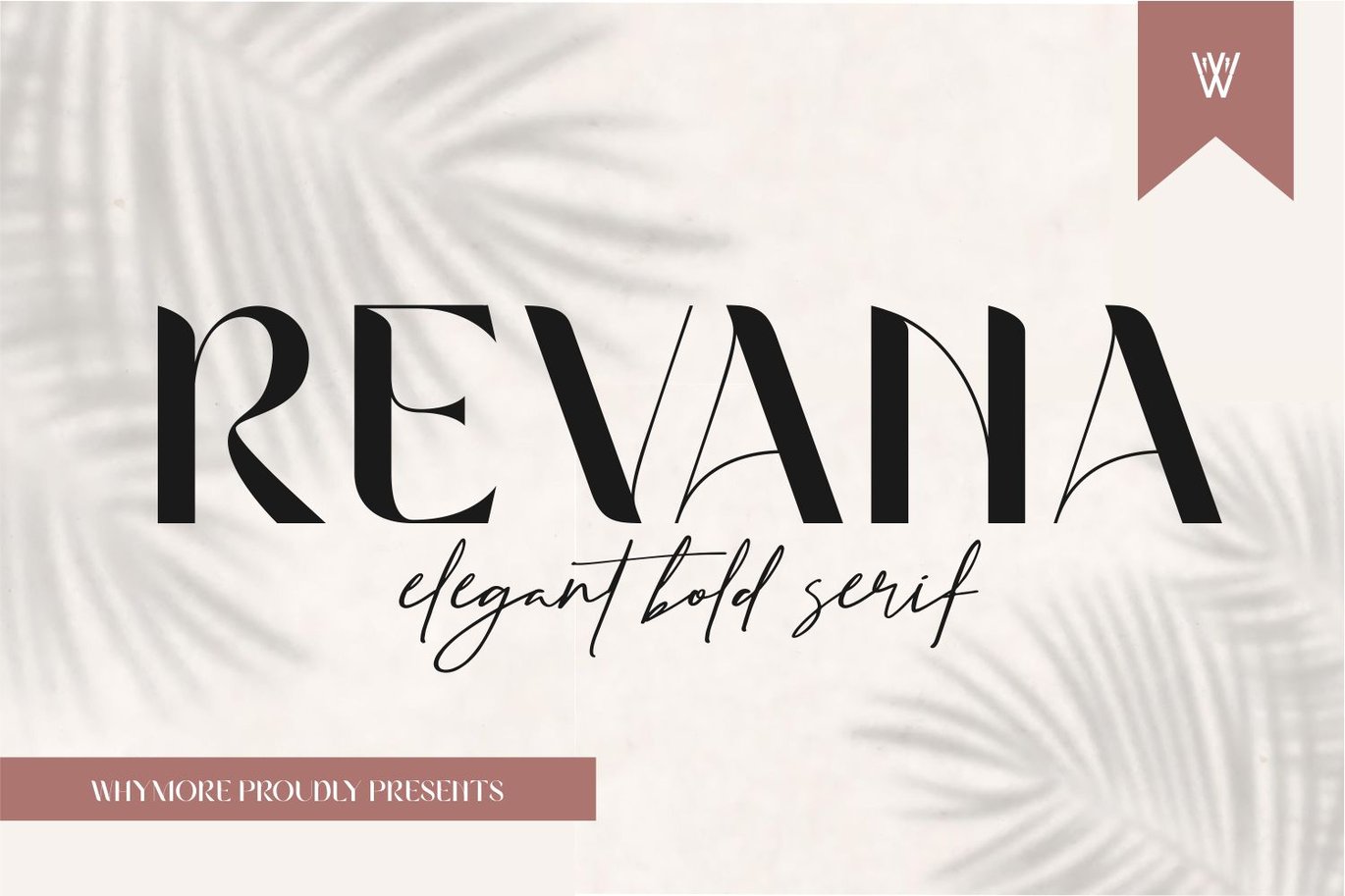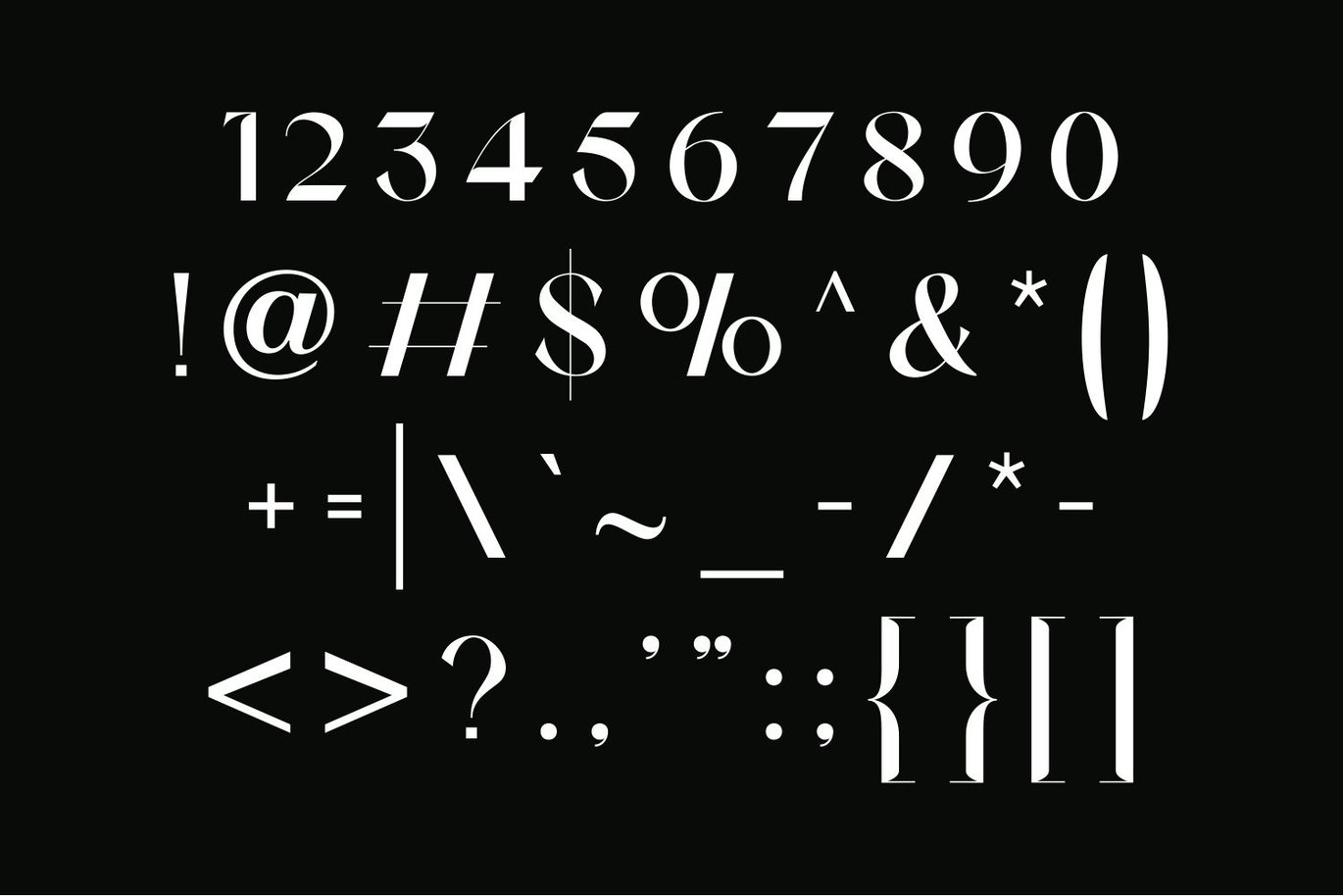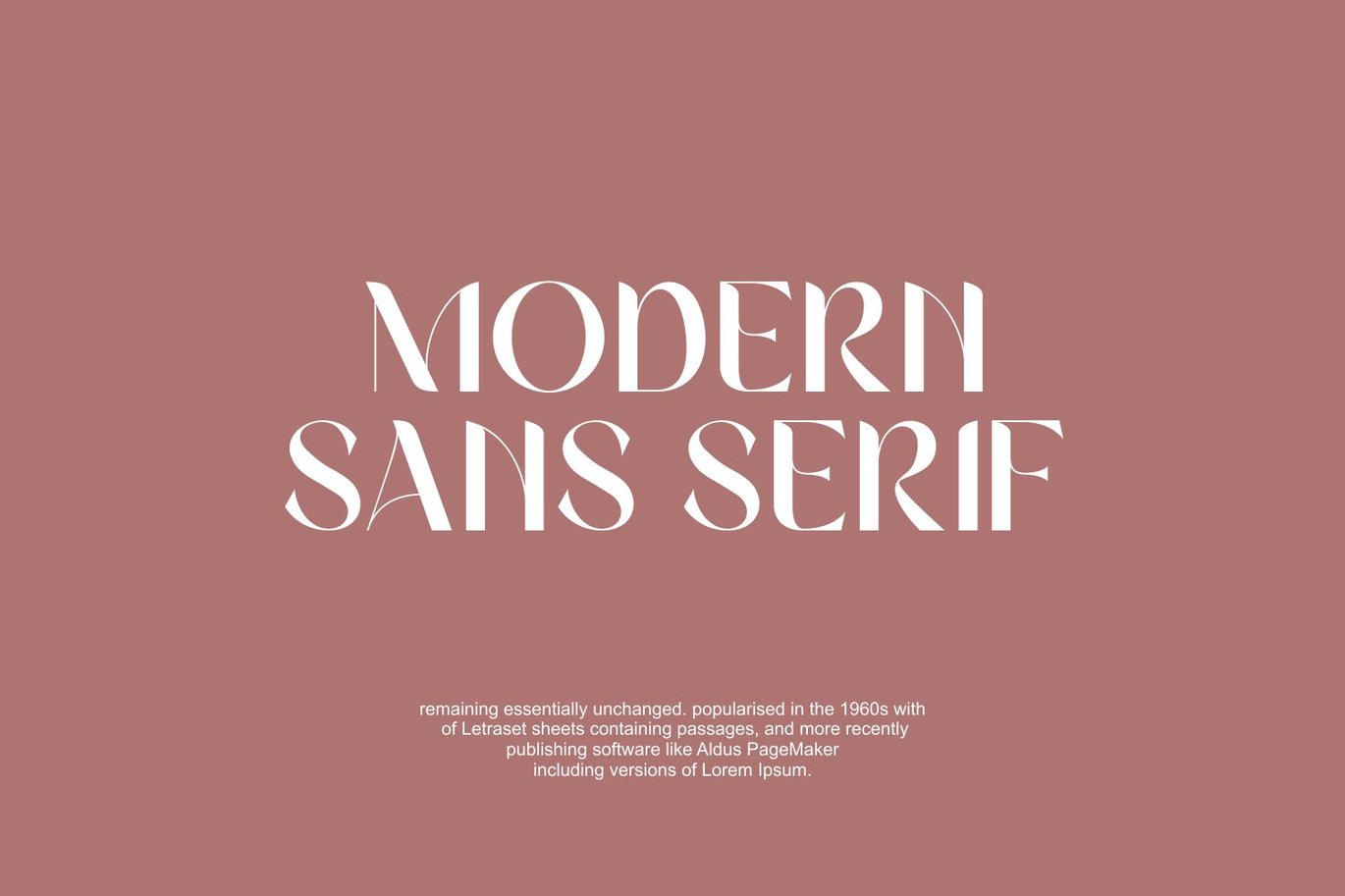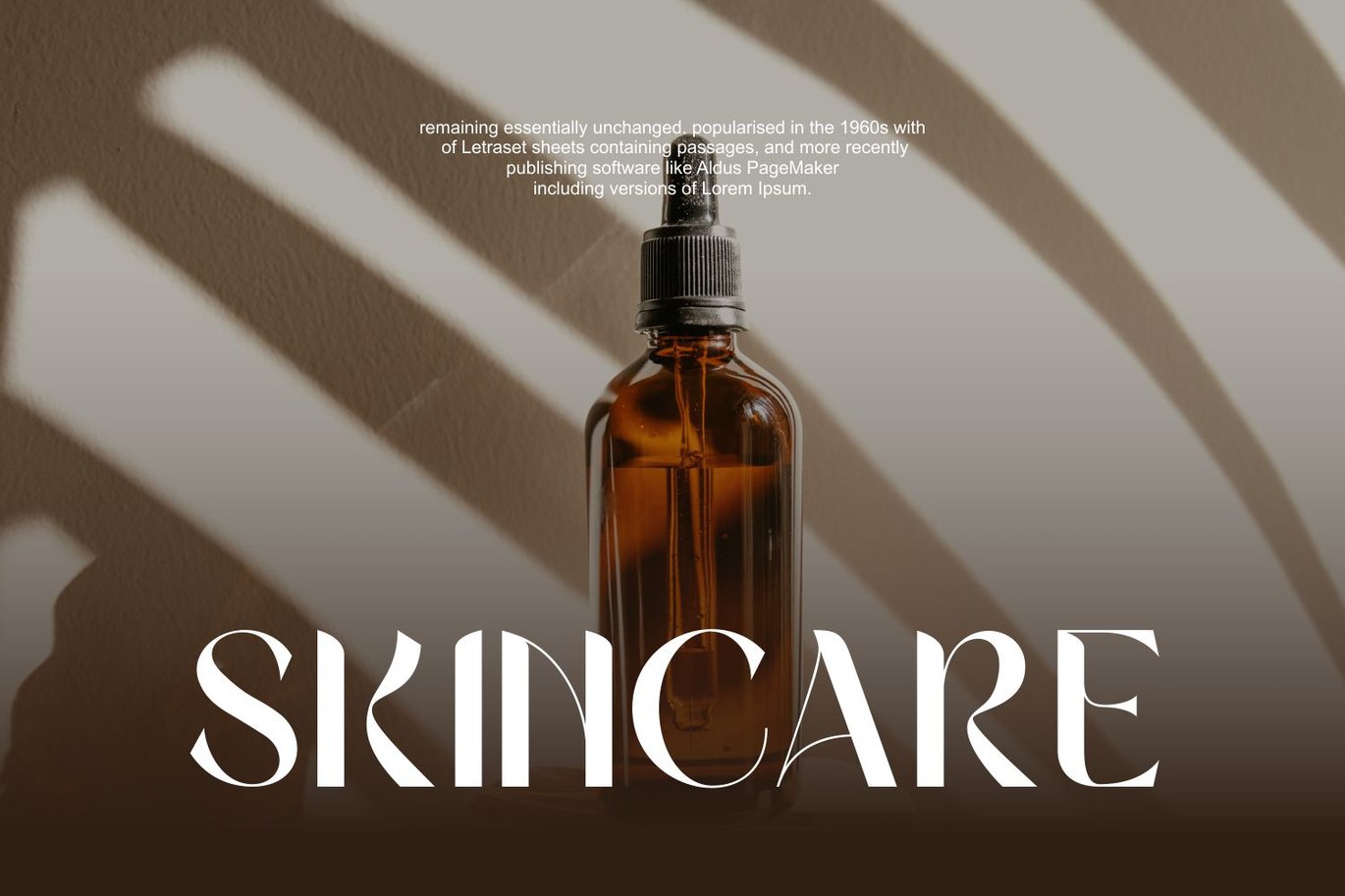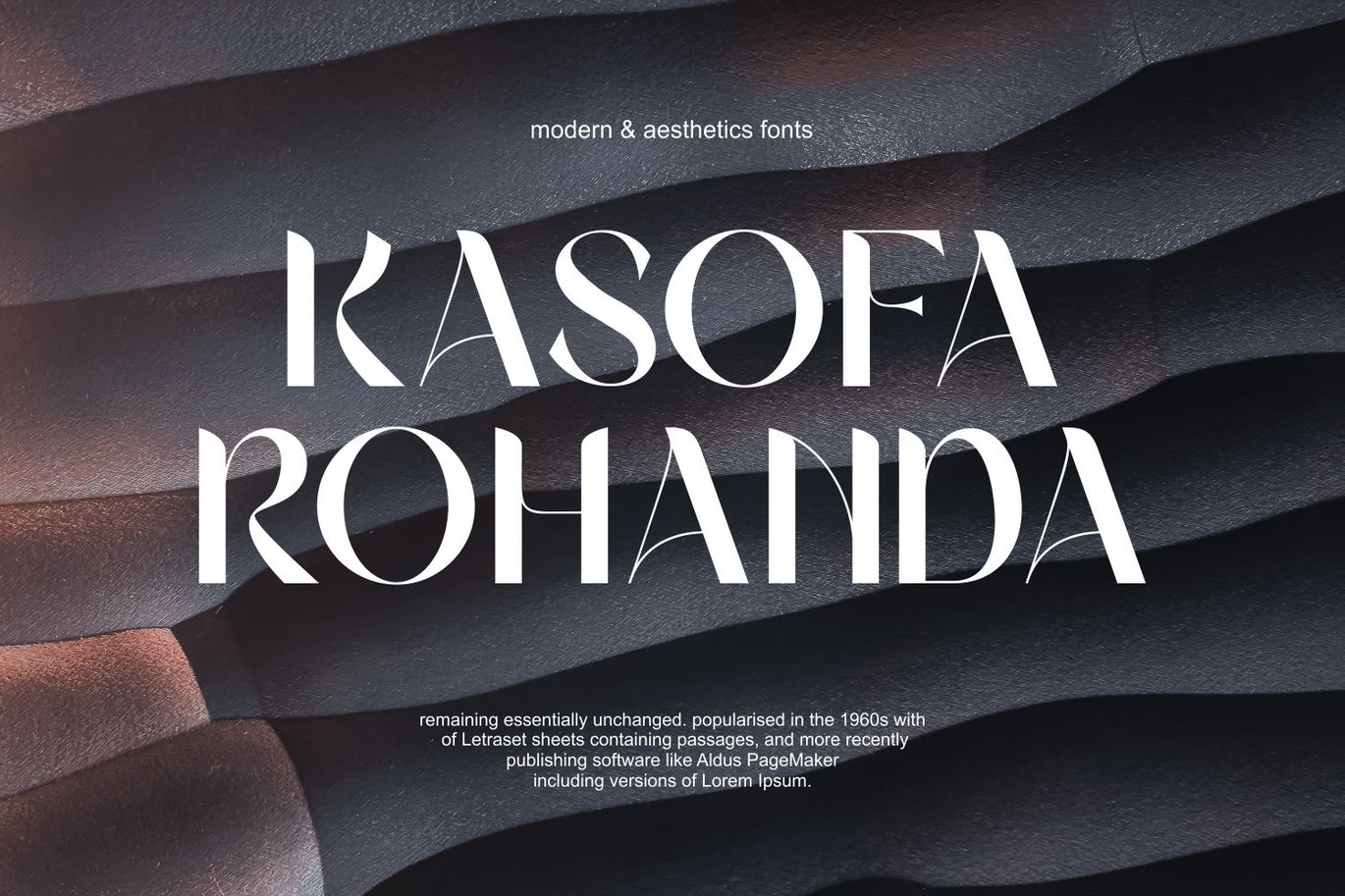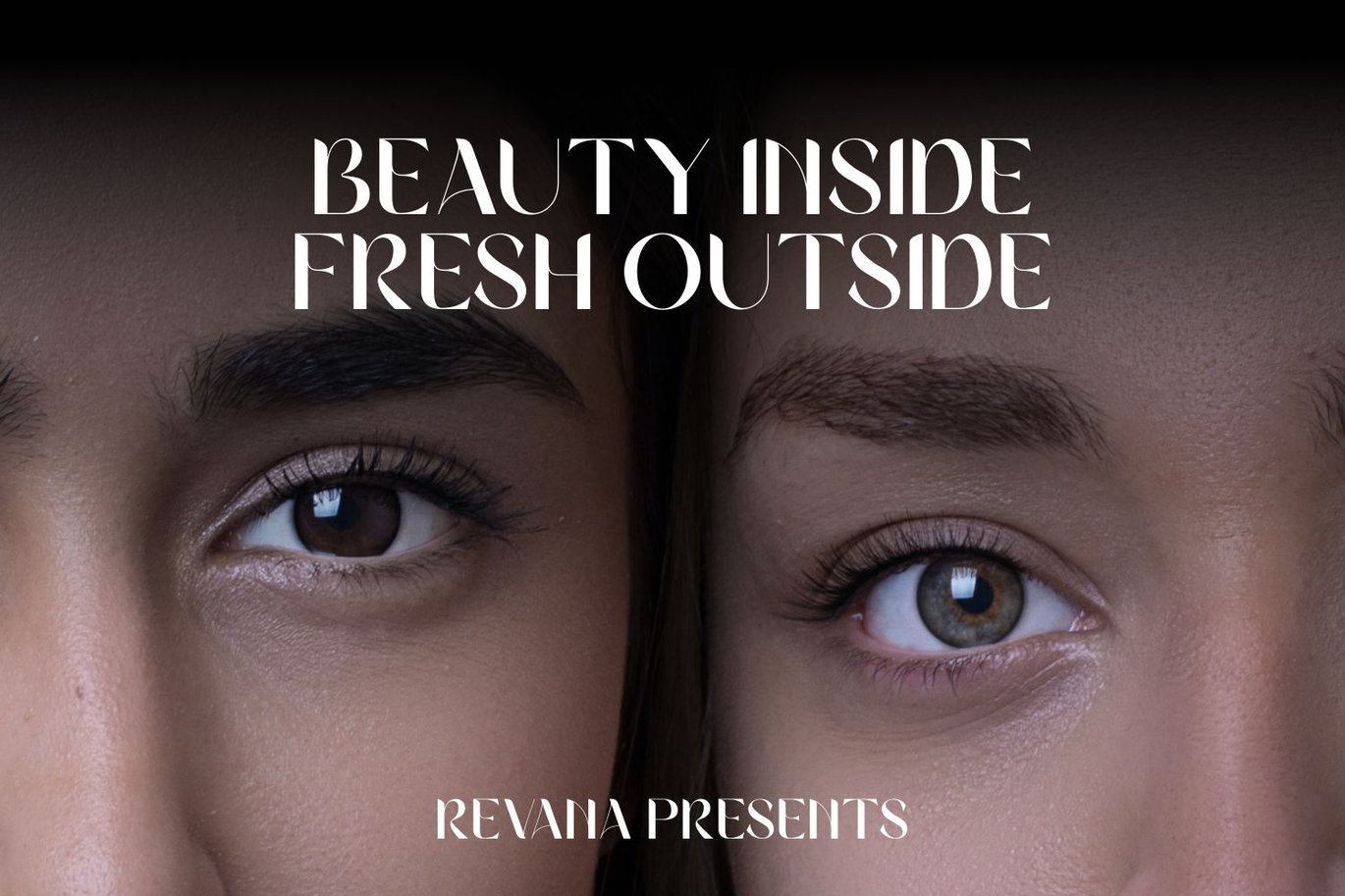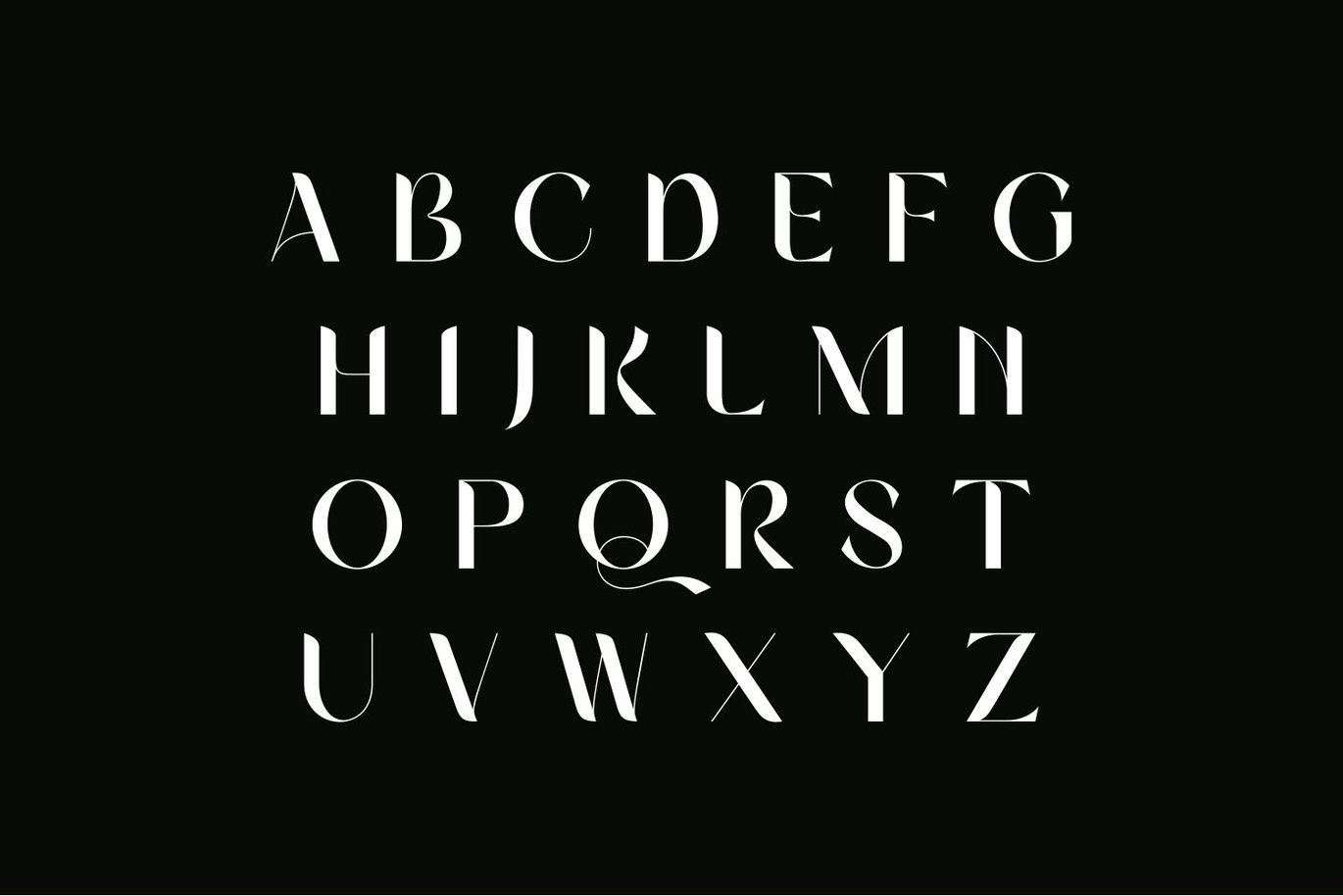
Revana |Beautifull Sans Serif Font
Revana is a flexible typeface that is very flexible and suitable for designs that emphasize aesthetics and beauty. This typeface can display an elegant nature but with an attractive curved shape.
With its unique and graceful curves and thin sans serif impression, this typeface can evoke a sense of beauty with classy elegance and luxury. Whether used for branding or editorial design, Revana adds a touch of glamor to any project.
The versatile nature of the Revana font makes it suitable for headings and body text, and its legibility ensures clear communication and can add attractive value to any customer who sees it. Revana font is the perfect choice for those looking for a typeface that embodies timeless beauty and sophistication.